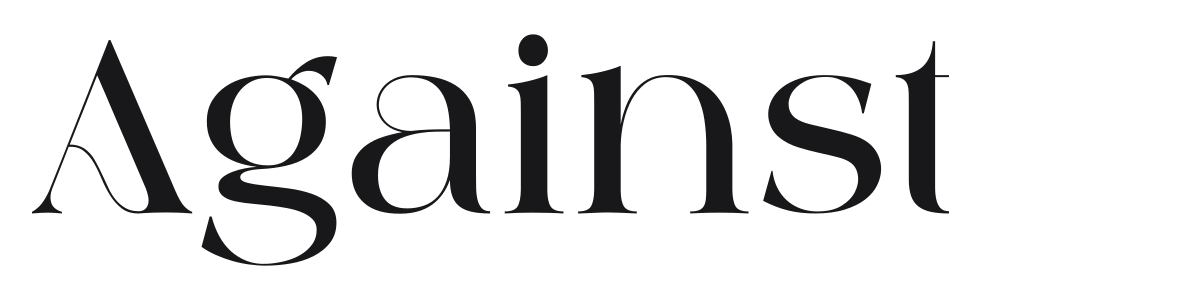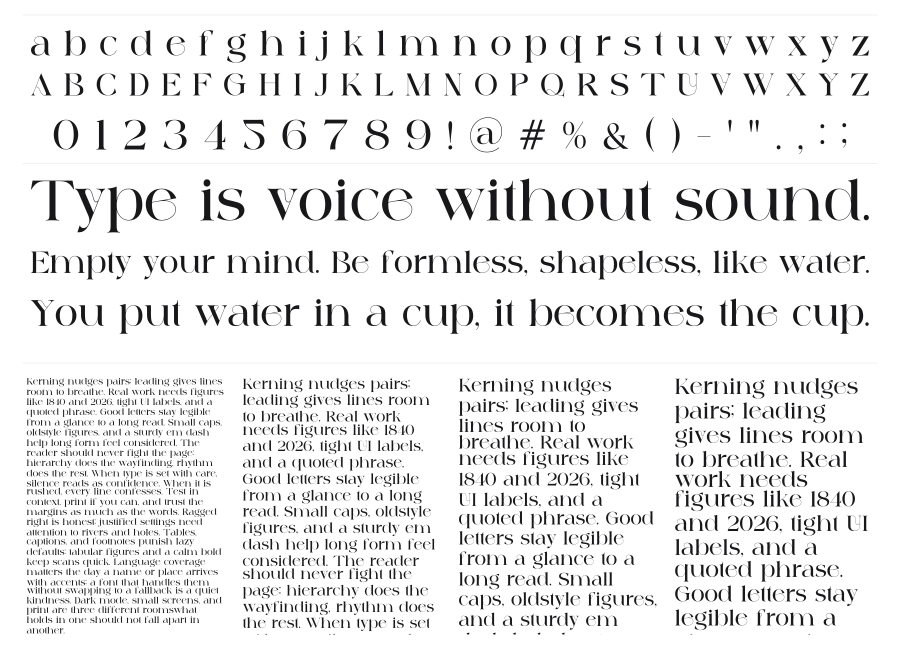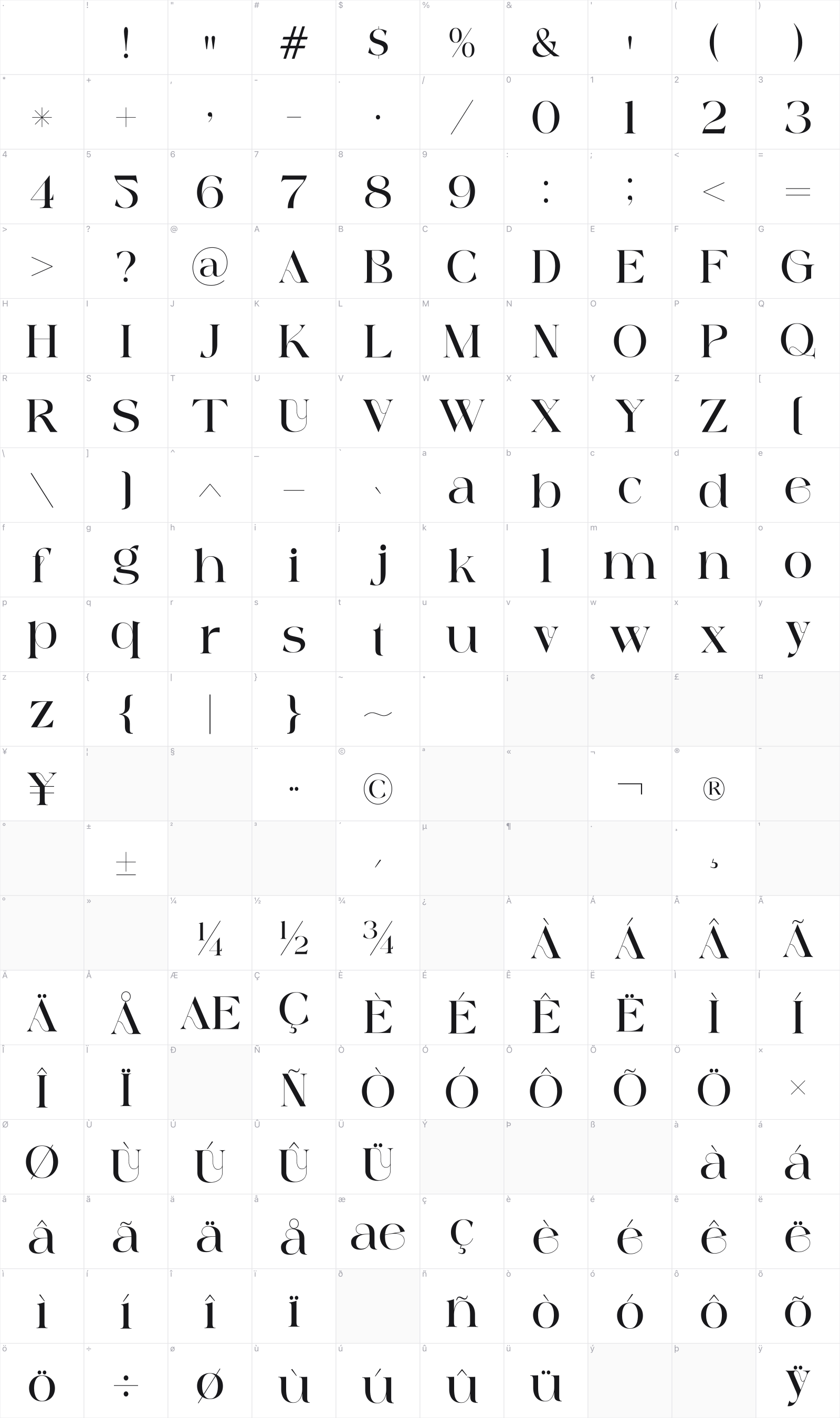
Against
Against is a high-contrast Didone-style serif with dramatic tension between its thick stems and near-invisible hairline strokes. The tall proportions and delicate horizontals give it the editorial authority found in luxury fashion mastheads. At headline sizes it commands the page; at small sizes, those hairlines disappear.